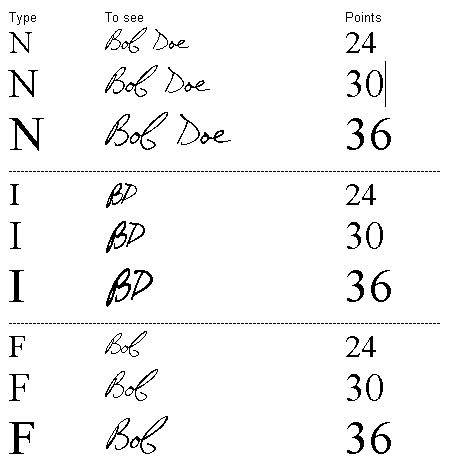
TrueType Signature Fonts Description
In order to create digital signatures you need dedicated tools that can deal with such a task. TrueType Signature Fonts is a font style that can help you produce different signatures. As its name suggests, this font style was built to provide the necessary features for turning your signature, first name, and even your initials into a TrueType font.
You can use this font pack to sign checks, brochures, presentations, business card, faxes, emails, or whatever you need to put your signature on. A TrueType font signature prints out smoothly, and this way you can print and sign official documents efficiently. Thanks to its overall simplicity, it can be mastered even by less experienced users.
Basically, it is possible to insert your signature into any Windows program that allows font embedding. You can access the “Signature Sample†font from your application’s font menu. In order to start creating signatures, you have to type the letters, and then select the “Signature Sample†font from your app. Once you have selected the font, the program instantly changes the text font to create signature-looking text.
TrueType Signature Fonts is able to generate three different types of signatures, namely for the whole name, first name, and the initials. During our testing we have noticed that the program is able to create signatures very quickly and without errors.
All things considered, TrueType Signature Fonts can be considered a handy font style that is capable of turning your signature, first name, and initials into a TrueType font. No special computer skills are required to work with this font pack, and it is also light on your system resources.